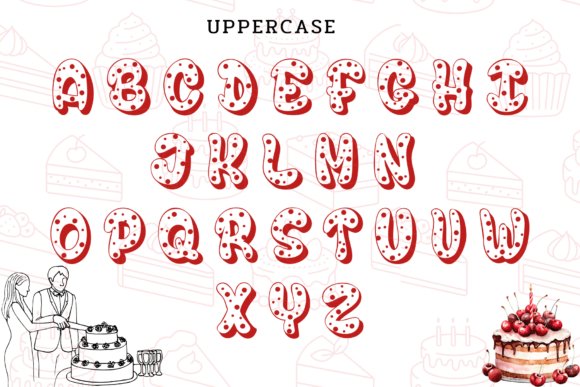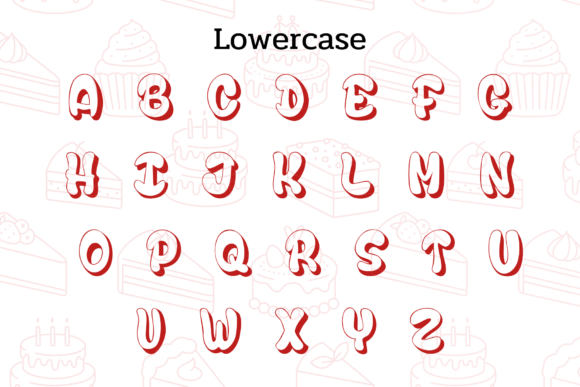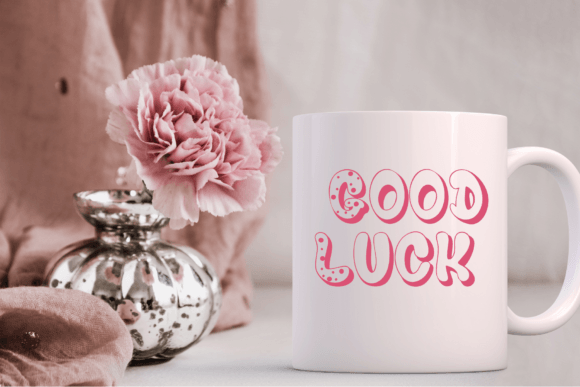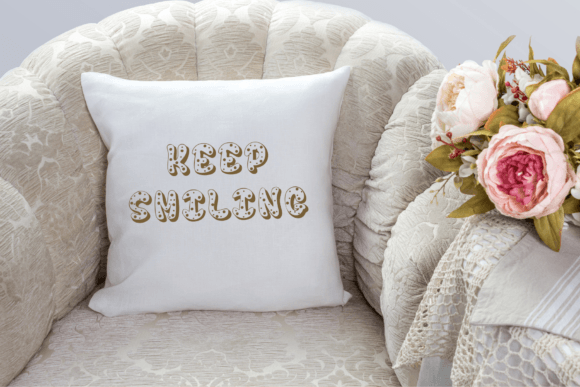
Cake Day Font: The Sweetest Addition to Your Design Collection
Are you a designer, crafter, or DIY enthusiast looking for a unique and playful font to add some sweetness to your projects? Look no further than the Cake Day Font! This decorative font is perfect for a variety of creative endeavors, from taking notes and writing diaries to making greeting cards and designing social media posts.
What is Cake Day Font?
Cake Day Font is a delightful, decorative typeface that’s sure to bring a smile to anyone’s face. Its playful, whimsical design makes it ideal for adding a personal touch to your creations. Whether you’re a professional designer or a crafty hobbyist, this font is sure to inspire your next project.
Uses for Cake Day Font
So, what can you do with Cake Day Font? The possibilities are endless! Here are some ideas to get you started:
- Note-taking and journaling: Add a touch of personality to your notes and diary entries with Cake Day Font. It’s perfect for writing down recipes, to-do lists, or simply jotting down your thoughts and ideas.
- Greeting cards and invitations: Create custom greeting cards, invitations, and party decor with Cake Day Font. Its playful design is sure to make your cards and invites stand out.
- Banners and signs: Use Cake Day Font to create eye-catching banners and signs for parties, events, or promotions.
- Social media posts: Add some visual interest to your social media posts with Cake Day Font. Use it to create engaging graphics, quotes, or announcements.
- Mugs, shirts, and stationery: Take your designs to the next level with Cake Day Font. Use it to create custom mugs, shirts, notebooks, and other stationery items.
Why Choose Cake Day Font?
So, why should you choose Cake Day Font for your next project? Here are just a few reasons:
- Unique and playful design: Cake Day Font has a one-of-a-kind design that’s sure to add a touch of personality to your creations.
- Versatile: This font is perfect for a wide range of projects, from notes and journals to social media posts and designs.
Tips for Using Cake Day Font
Here are a few tips for getting the most out of Cake Day Font:
- Experiment with colors and textures: Add some extra visual interest to your designs by experimenting with different colors and textures.
- Pair with other fonts: Try pairing Cake Day Font with other fonts to create a unique and eye-catching design.
- Use it sparingly: While Cake Day Font is playful and fun, it’s best to use it sparingly to avoid overwhelming your design.
In conclusion, Cake Day Font is a sweet and versatile addition to any design collection. Its playful, decorative design makes it perfect for a wide range of creative projects, from notes and journals to social media posts and designs. So why not give it a try and see what amazing creations you can come up with?